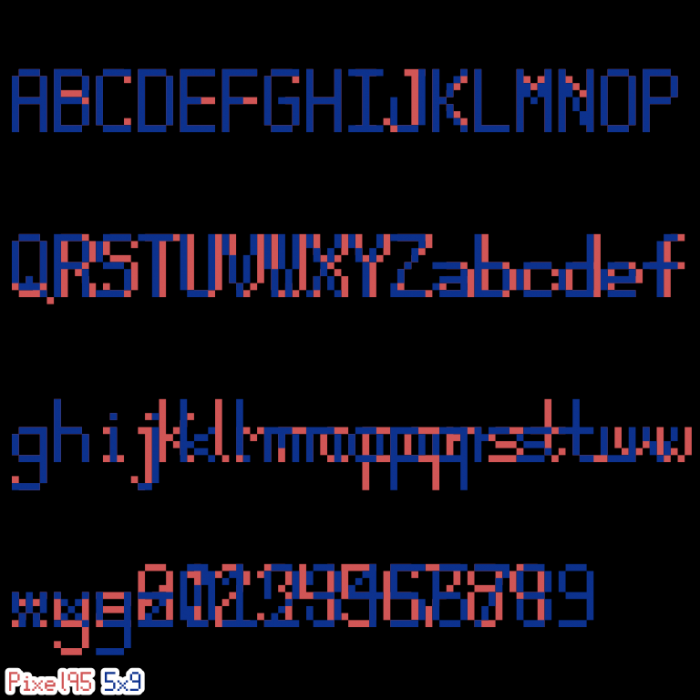
Did you seriously just copy my 9 x 5 font?
@HNA (Ver 1): uhm look again my friend, there is obviously a lot of differences... Now I wonder if in fact your font is truly yours to begin with, since you doesn't seem to know your own work.. ;)
@HNA (Ver 1) like @Sed4tives said, there are a lot of differences, specifically between spacing. Please look at the sample below. (The colours and what they stand for are at the bottom-left corner.)